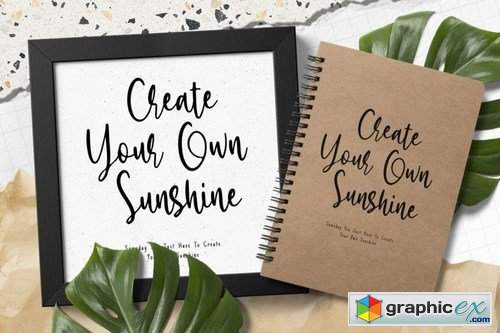
Bloena
Introducing Bloena casual handwritten script. Great for magazine layouts, crafting, branding, posters, websites, social media, greeting cards, invitations, mugs, frames, and so much more.